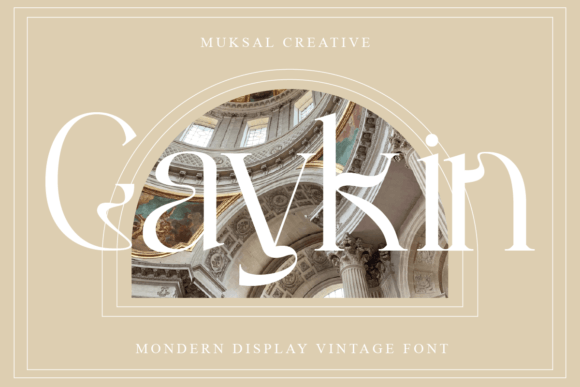
Introduction to Gaykin Font
Gaykin is a modern and sophisticated serif font with ornamental characters.
It’s a very versatile font that works great in large and small sizes Perfect for editorial projects, Logo design, Clothing Branding, product packaging, magazine headers, or simply as a stylish text overlay to any background image.